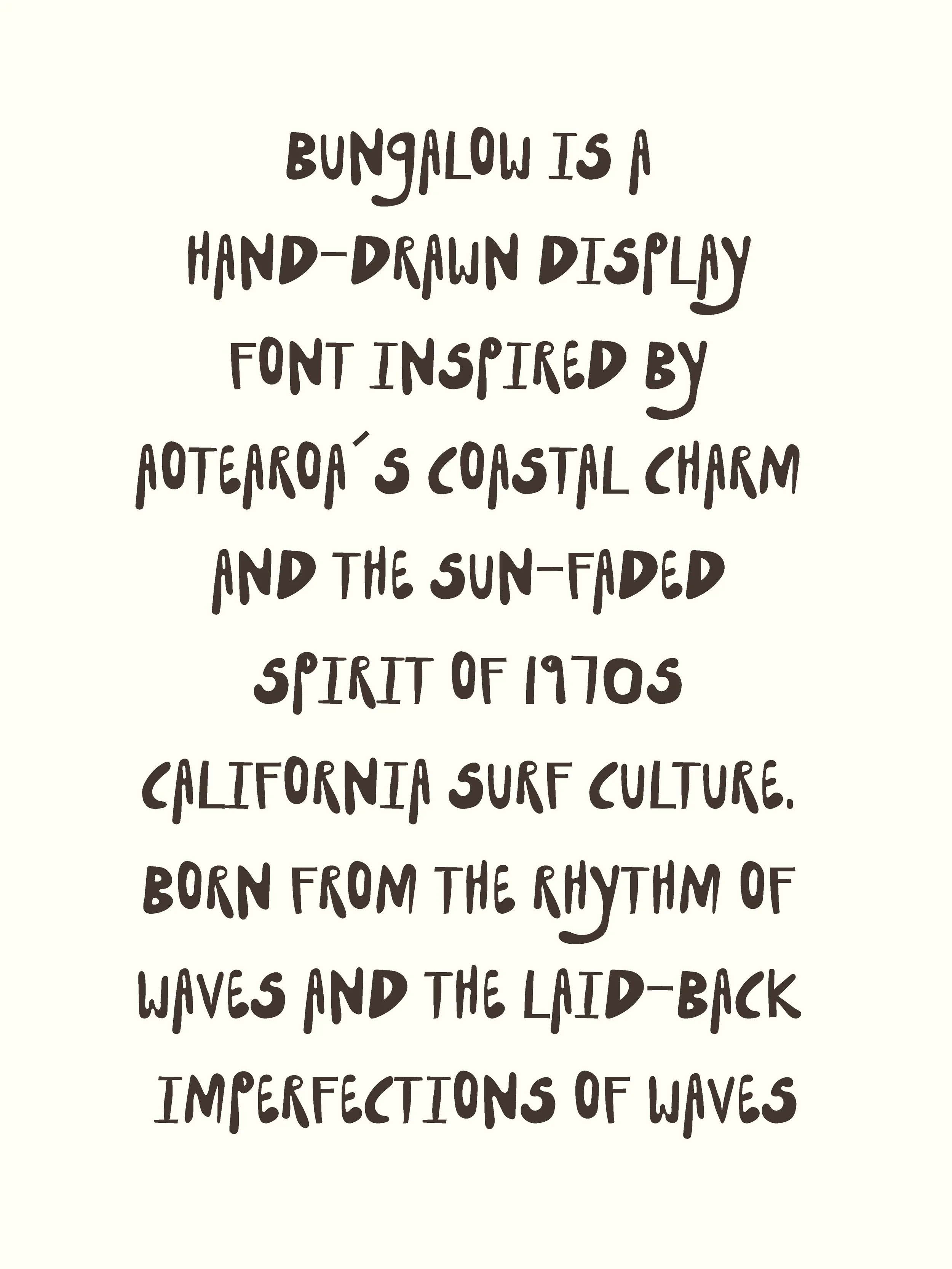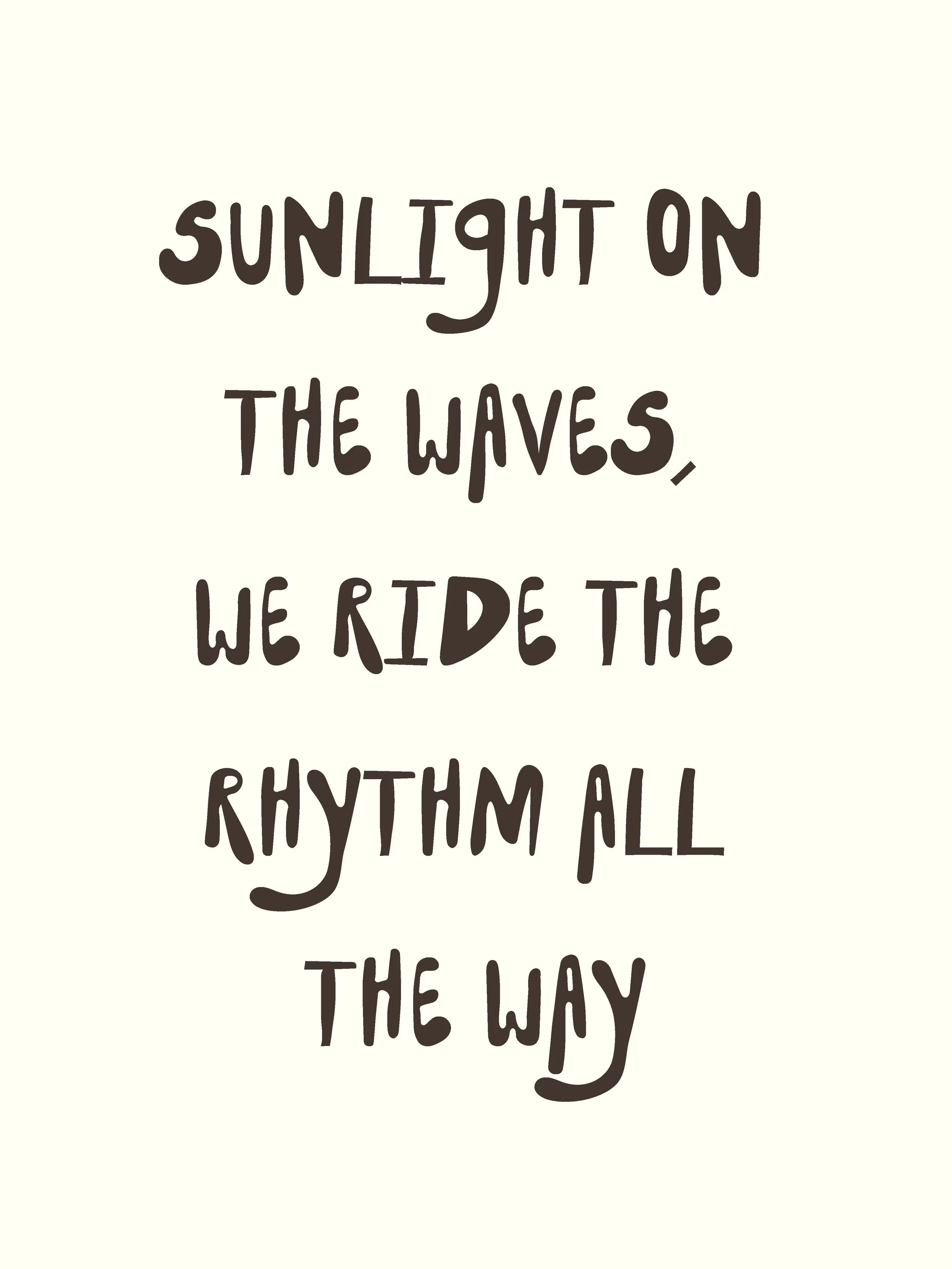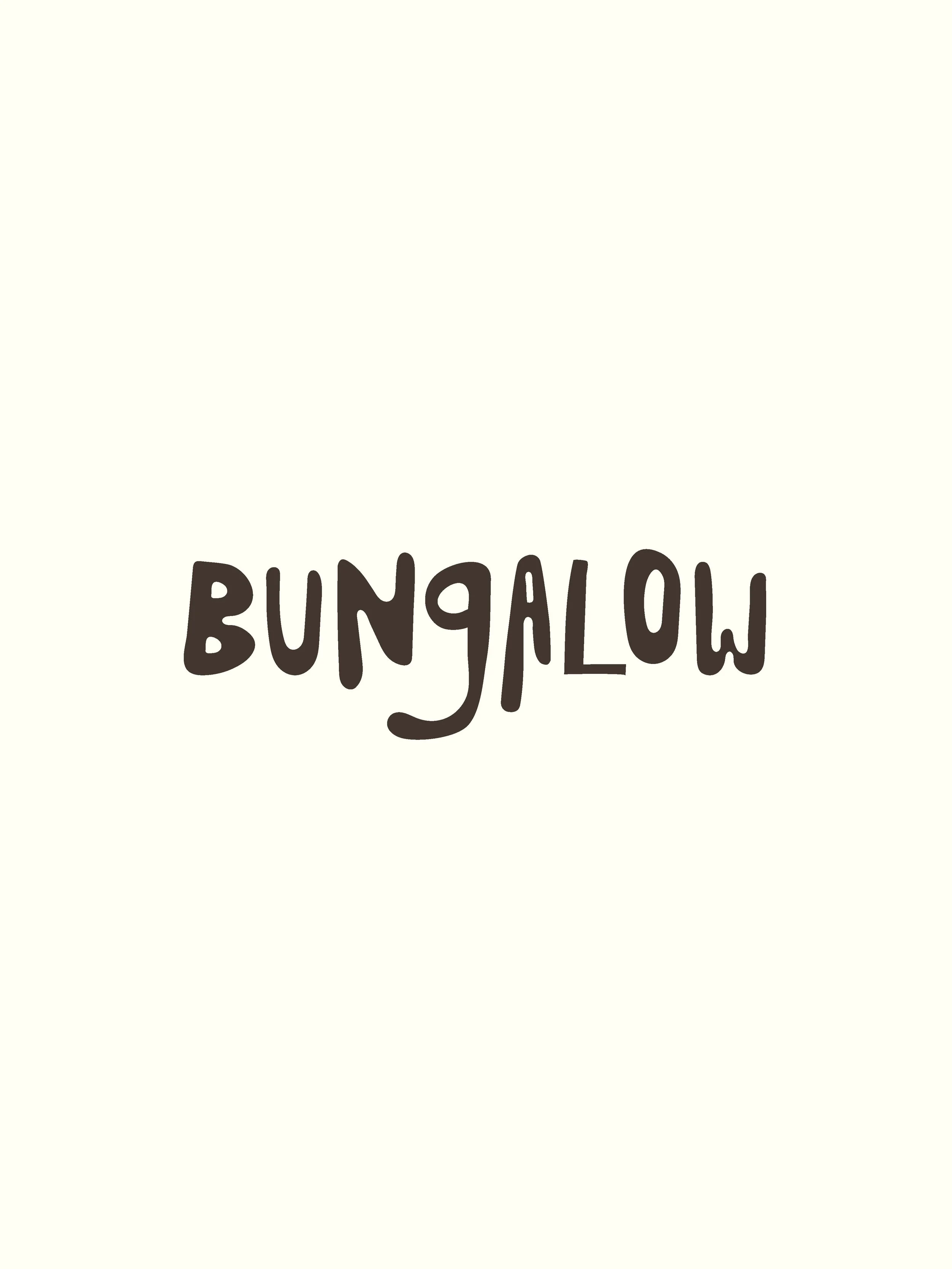
BUNGALOW is a hand-drawn display font that drifts between the salty shores of Aotearoa and the sun-faded soul of 1970s California surf culture. Born from the rhythm of Whangamatā’s waves and the imperfect beauty of things made by hand, it carries the relaxed warmth of beach bungalows, longboards, and painted signage weathered by the sea.
First drawn for a longboard shaper and glasser, BUNGALOW grew from a single logo into a full typeface — each letter marked by subtle irregularities, like brushstrokes across wood or resin along a surfboard’s edge.
This is a font with tide and texture, made for projects that call for ease, nostalgia, and a sun-drenched analogue spirit.
Features:
A–Z uppercase (with a handful of alternates)
Numbers 0–9
Basic punctuation
Select non-English glyphs
Perfect for surf brands, coastal cafés, vintage posters, apparel graphics, or anything that needs a little shoreline soul. BUNGALOW brings easygoing authenticity with a hand-shaped edge.